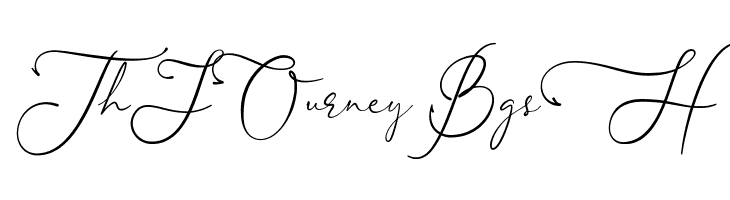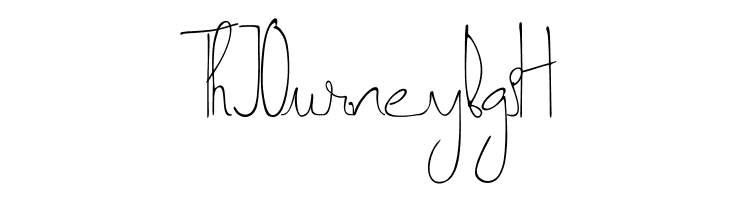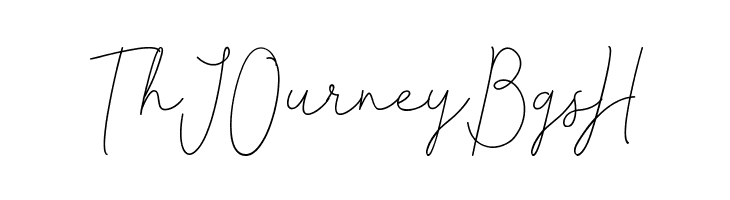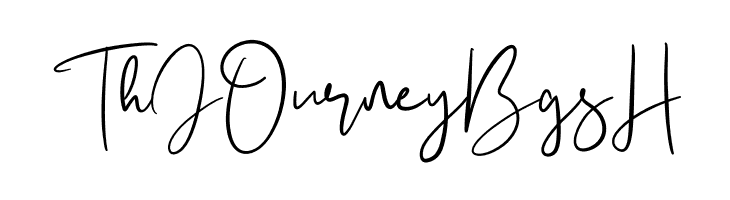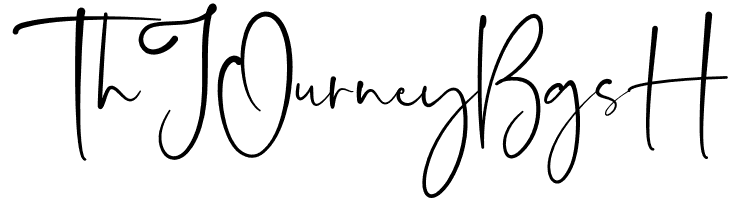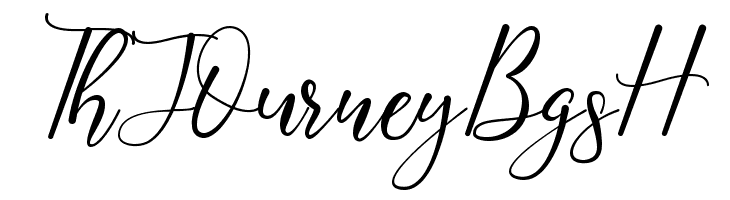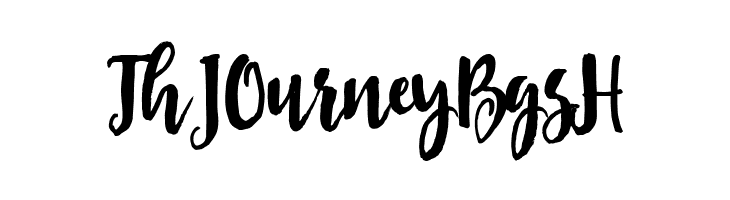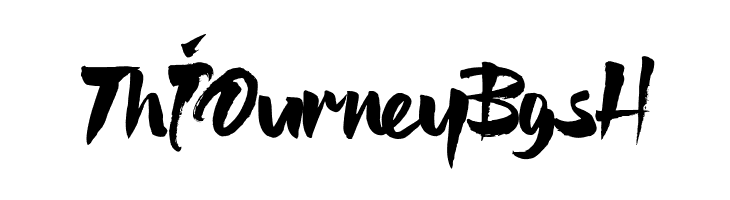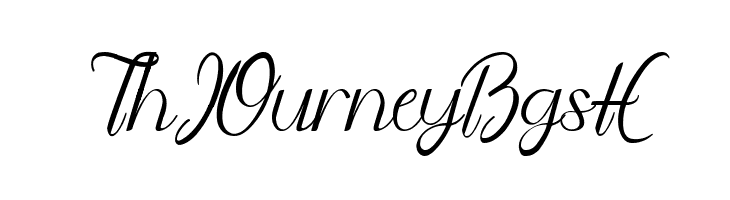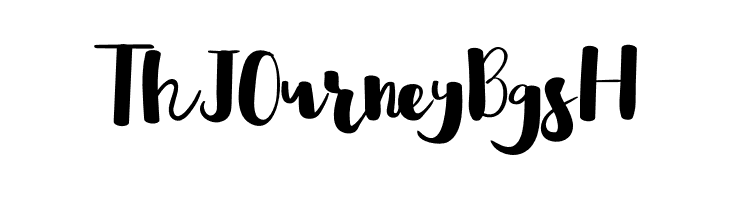
• Asly Brush
A bold and expressive brush script font with dynamic strokes.
• Asmara
An elegant, flowing script font with ornate uppercase and smooth lowercase letters.
• Asmara
An elegant, flowing script font with a delicate, handwritten style.
• Asmarandana
A whimsical, handwritten font with elongated, flowing characters.
• Asmelina Harley
An elegant script font with flowing, interconnected letters and graceful swashes.
• Asmira
A modern, cursive handwritten font with a flowing and elegant style.
• asmirandah
An elegant, flowing script font with smooth, cursive letterforms.
• Asmirandah
A bold, handwritten font with a playful and artistic style.
• Asmiyati
A lively, expressive handwritten font with fluid, dynamic strokes.
• AsmokumisRegular
A bold, brush-style font with a dynamic and expressive handwritten appearance.